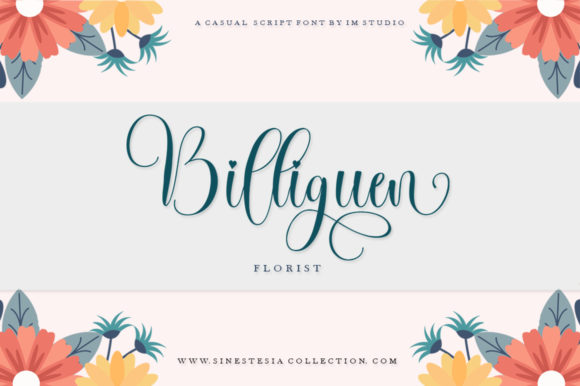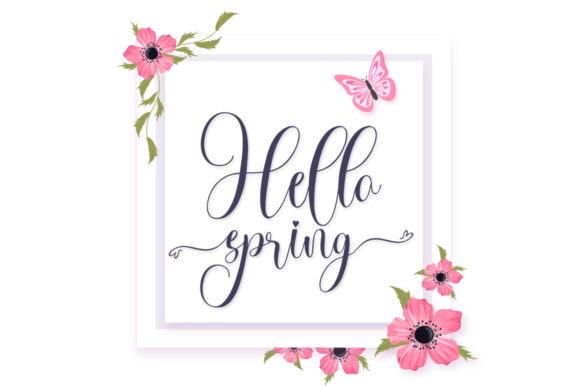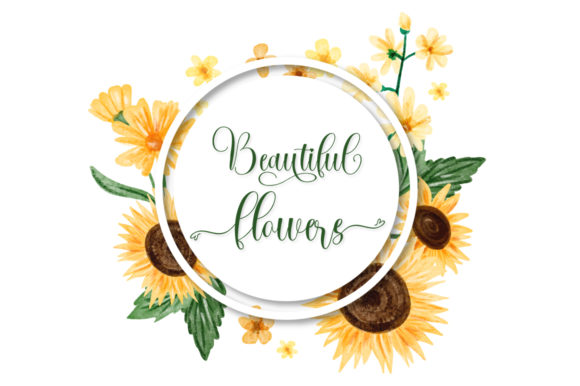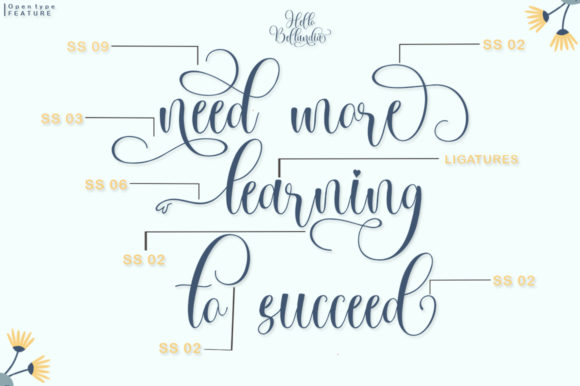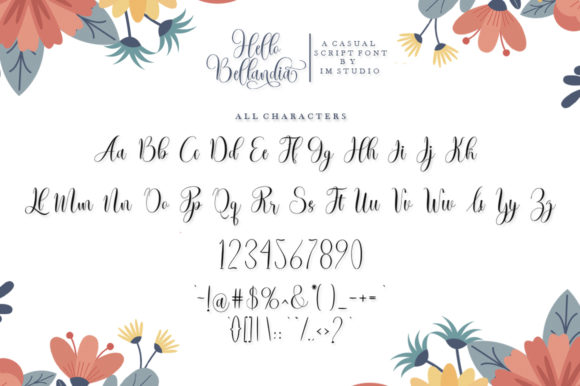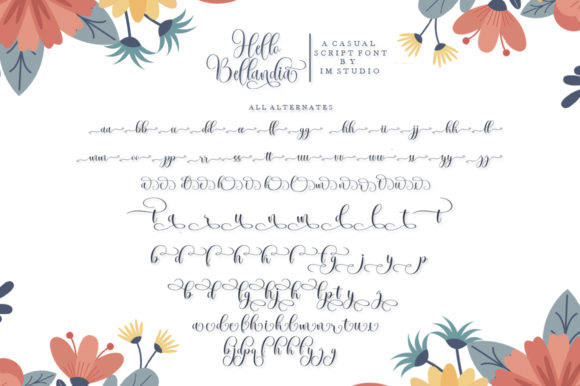
Introduction to Hello Bellandia Font
As a designer, have you ever been stuck on finding the perfect font to elevate your creative project? You’re browsing through numerous free download options, but nothing seems to capture the essence of your vision. One moment, you stumble upon a font that resonates with your style, and it’s like a breath of fresh air. This is exactly what happens when you discover the Hello Bellandia Font.
This high-quality, handwritten font is a game-changer for designers seeking a unique design resource. Its versatility makes it perfect for headlines of all sizes, as well as blocks of text with maximum and minimum variations. Whether you’re working on a web, print, or moving images project, Hello Bellandia Font will add a touch of sophistication and elegance.
Key Features of Hello Bellandia Font
- High-quality design resource suitable for creative projects, offering a unique and elegant touch.
- Perfect for use in graphic design, digital art, and other creative pursuits where a sophisticated and refined font is desired.
Honest Review: Hello Bellandia Font
One of the standout features of Hello Bellandia Font is its high quality. The design is crisp and clean, making it perfect for use on transparent backgrounds. The font’s versatility is another major advantage, as it can be used in a wide range of creative projects.
Here are some of the things that work well for the Hello Bellandia Font:
- ✨ High-quality design that’s perfect for use on transparent backgrounds
- ✨ Versatile and can be used in a wide range of creative projects
However, there are a few limitations to be aware of:
- ⚠️ The font may not be suitable for use in high-contrast designs, as the letters can become difficult to read
Overall, I’m really impressed with the Hello Bellandia Font. It’s a fantastic design resource that’s perfect for a wide range of creative projects. Just be aware of the potential limitations, and you’ll be all set to create some amazing designs.
Hello Bellandia Font is a high-quality design resource perfect for creative projects. With its unique style and transparent background, this font is ideal for designers looking for a free download to elevate their work.
Tips for Getting the Most Out of Hello Bellandia Font
To maximize the effectiveness of Hello Bellandia Font, use it in combination with other design elements, such as images and graphics, to create a visually appealing and cohesive design.
Common Use Cases for Hello Bellandia Font
Hello Bellandia Font is suitable for a variety of design projects, including:
- Print materials, such as business cards and brochures
- Digital designs, such as social media graphics and website headers
Alternatives to Hello Bellandia Font